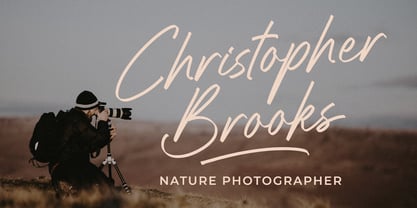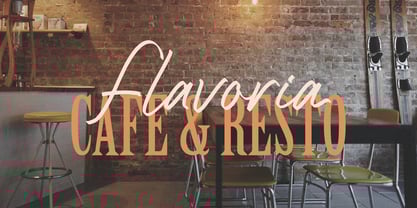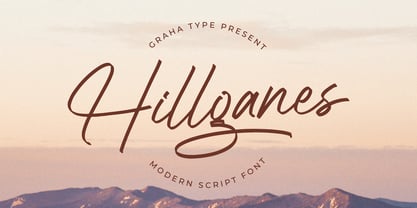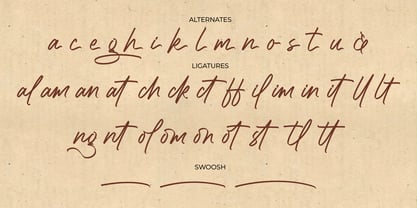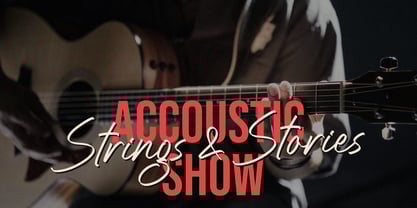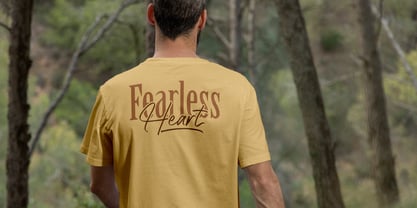
Hillganes
by Graha Type
The Hillganes Font Family was designed by Toni Nugraha and published by Graha Type. Hillganes contains 1 styles.
Hillganes is a sleek and elegant modern script font designed to exude contemporary sophistication. Its smooth curves, refined details, and stylish letterforms make it a versatile choice for various design needs, such as logotypes, branding, merchandise, and more. With a balance of boldness and grace, Hillganes offers alternates and ligatures to enhance creativity while maintaining seamless compatibility across design platforms. This font is perfect for designers looking to elevate their projects.
Hillganes